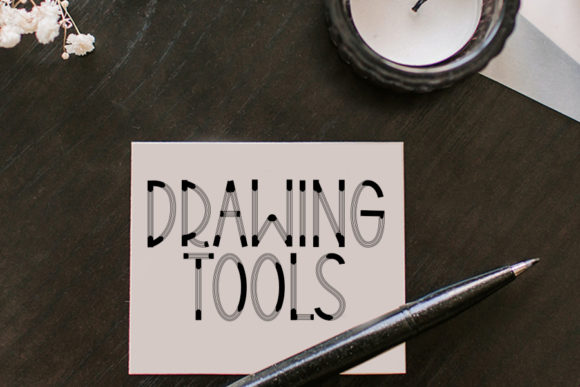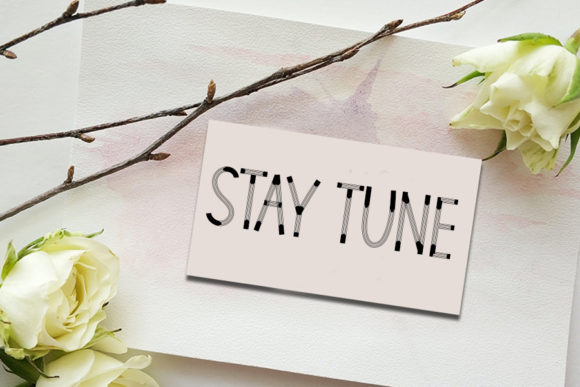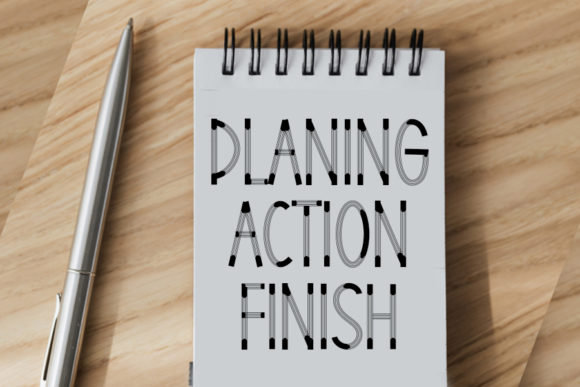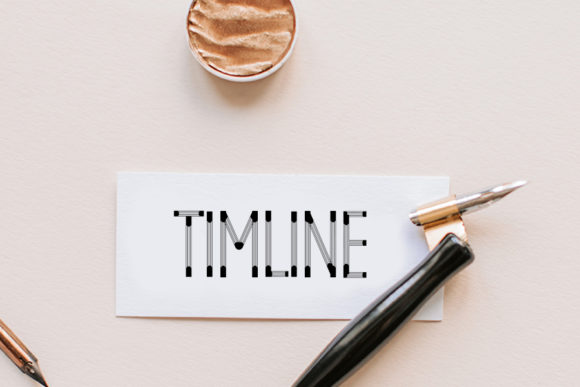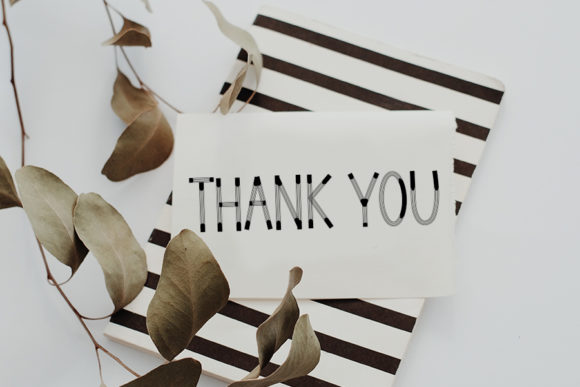
Hello Designer Font: Add an Adventurous Touch to Your Designs
Hello Designer Font is a unique and fun display font that can instantly elevate your designs with an adventurous and authentic feel. This font is perfect for designers and crafters looking to add a personal touch to their projects. In this article, we’ll explore the features and benefits of Hello Designer Font and how it can be used to make your designs stand out.
What is Hello Designer Font?
Hello Designer Font is a display font designed to make a statement. Its unique and fun design makes it perfect for adding a touch of personality to your designs. The font is ideal for use in a variety of projects, including logos, branding, packaging, and more.
Key Features of Hello Designer Font
- Unique and Fun Design: Hello Designer Font has a one-of-a-kind design that is sure to grab attention.
- Adventurous and Authentic Feel: The font has an adventurous and authentic feel that makes it perfect for designs that require a personal touch.
- High-Quality Design: The font is designed with high-quality craftsmanship, ensuring that it looks great in any design.
- Easily Readable: Despite its unique design, Hello Designer Font is easily readable, making it perfect for use in a variety of projects.
Benefits of Using Hello Designer Font
There are many benefits to using Hello Designer Font in your designs. Some of the most significant advantages include:
- Instantly Elevate Your Designs: Hello Designer Font can instantly elevate your designs with its unique and fun design.
- Add a Personal Touch: The font allows you to add a personal touch to your designs, making them stand out from the crowd.
- Perfect for Adventurous Designs: Hello Designer Font is perfect for designs that require an adventurous and authentic feel.
- Great for a Variety of Projects: The font is versatile and can be used in a variety of projects, including logos, branding, packaging, and more.
How to Use Hello Designer Font
Using Hello Designer Font is easy. Here are a few tips to get you started:
- Use it as a Display Font: Hello Designer Font is perfect for use as a display font in headings, titles, and more.
- Pair it with Other Fonts: The font pairs well with other fonts, making it easy to create a unique and cohesive design.
- Experiment with Different Sizes and Colors: Don’t be afraid to experiment with different sizes and colors to find the perfect look for your design.
Who is Hello Designer Font for?
Hello Designer Font is perfect for designers and crafters who want to add a personal touch to their projects. This includes:
- Graphic Designers: Graphic designers can use Hello Designer Font to create unique and eye-catching designs for their clients.
- Crafters: Crafters can use the font to add a personal touch to their handmade projects, such as cards, invitations, and more.
- Small Business Owners: Small business owners can use Hello Designer Font to create a unique and recognizable brand identity.
Hello Designer Font is a unique and fun display font that can instantly elevate your designs with an adventurous and authentic feel. With its high-quality design, easily readable text, and versatility, this font is perfect for designers and crafters looking to add a personal touch to their projects. Whether you’re a graphic designer, crafter, or small business owner, Hello Designer Font is a great choice for your next design project.